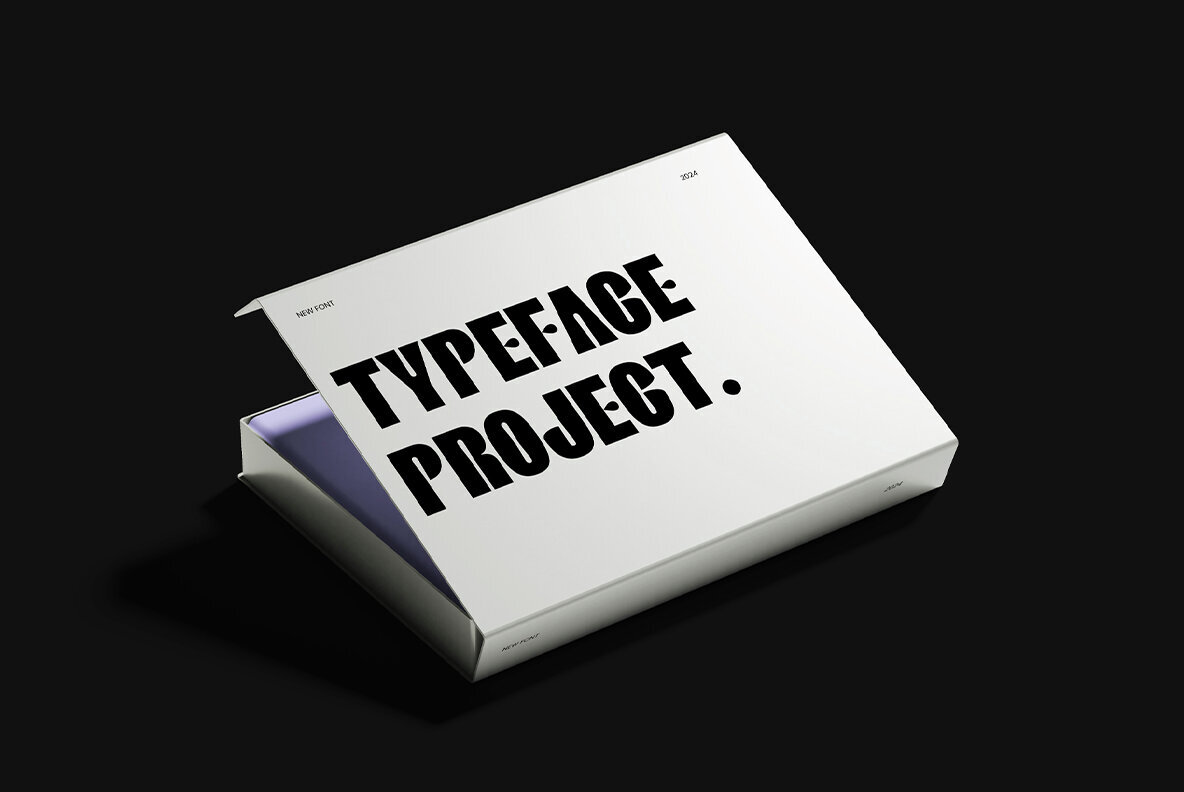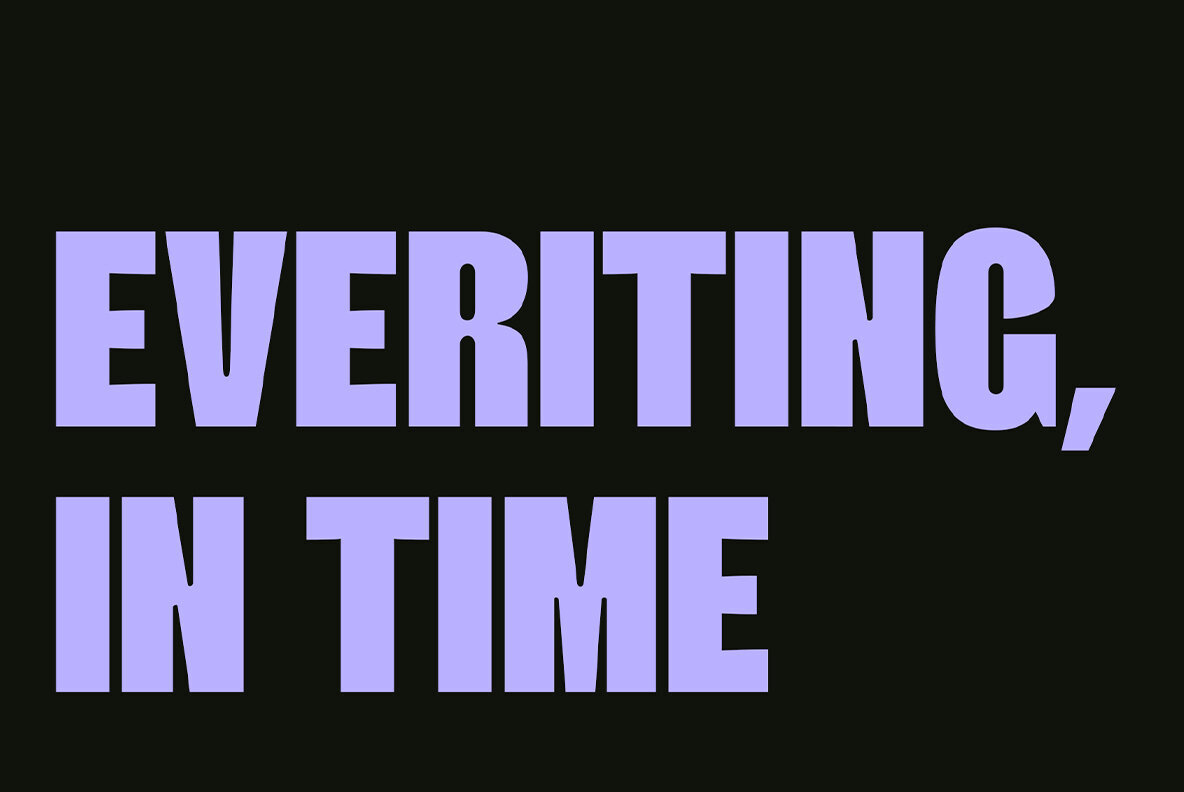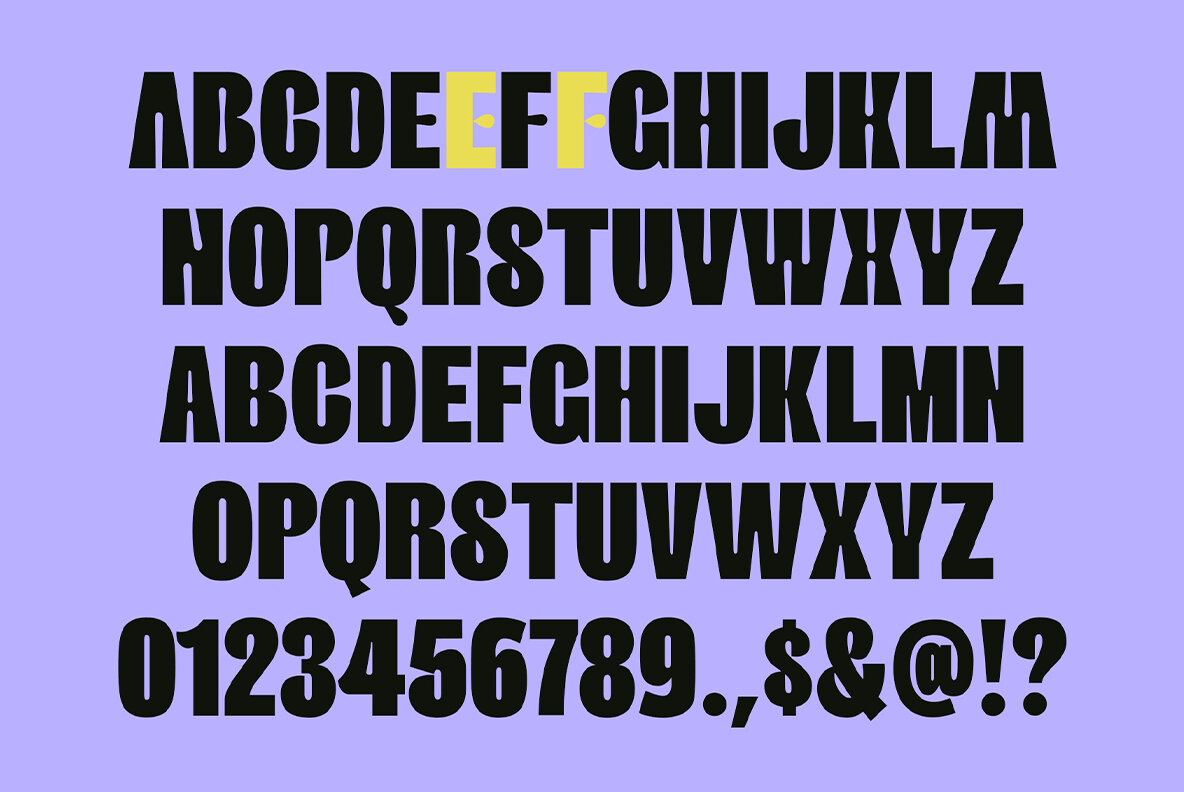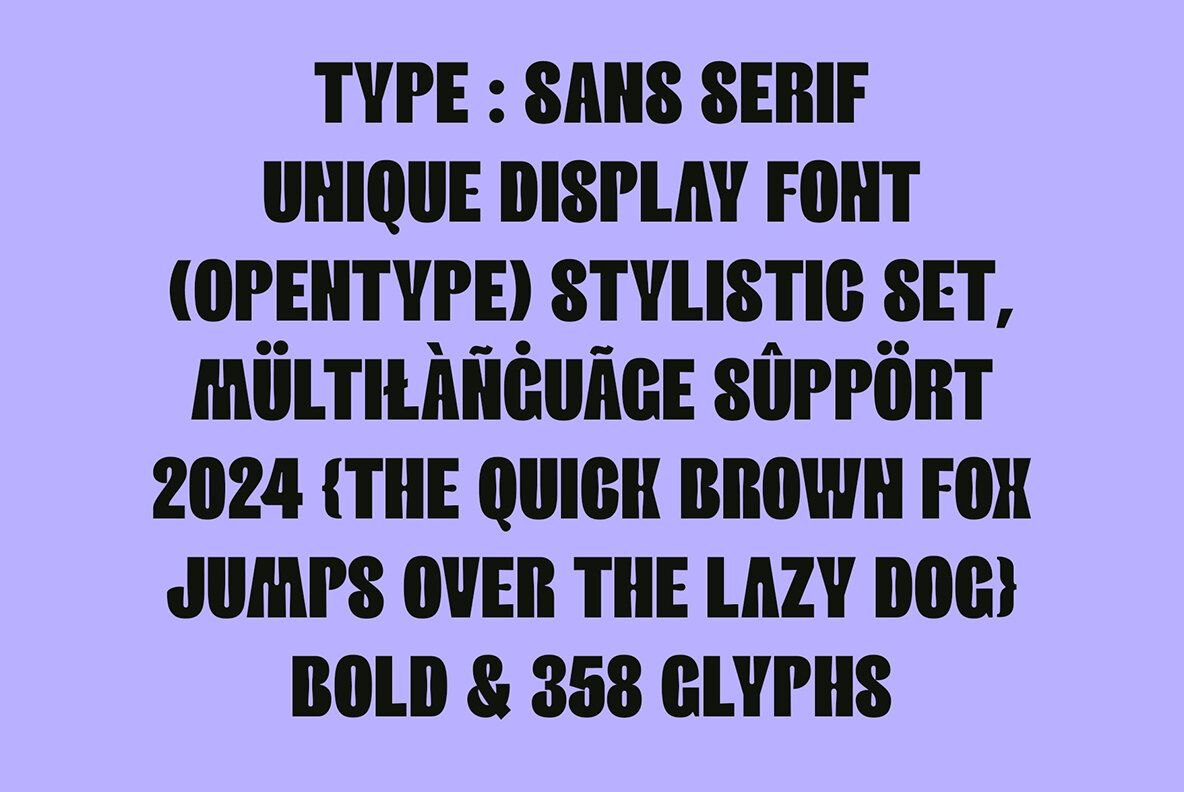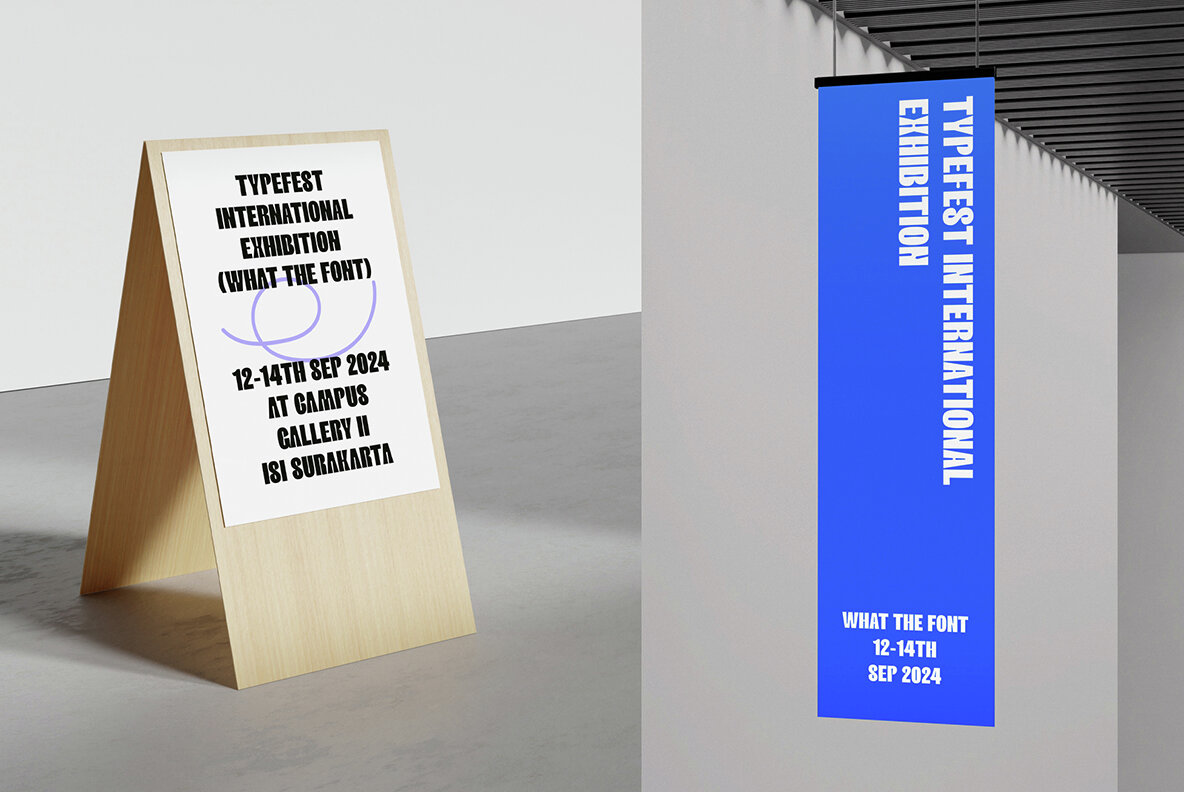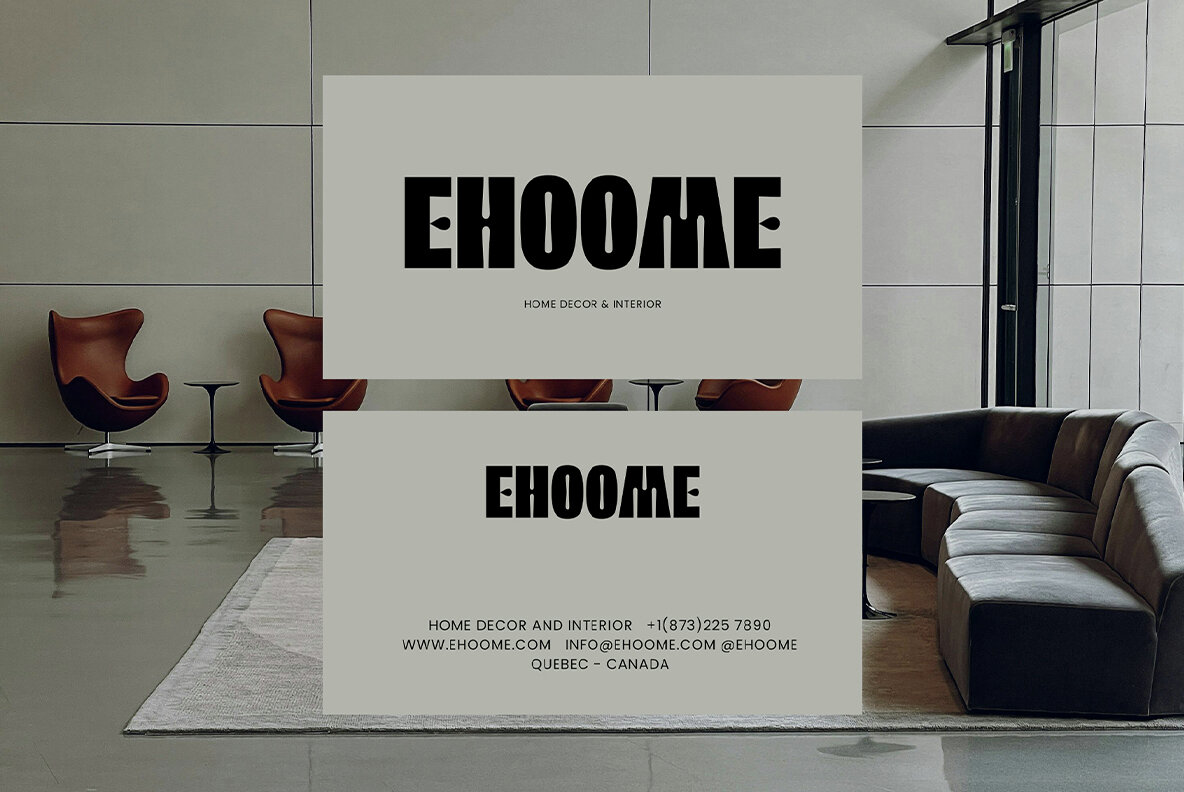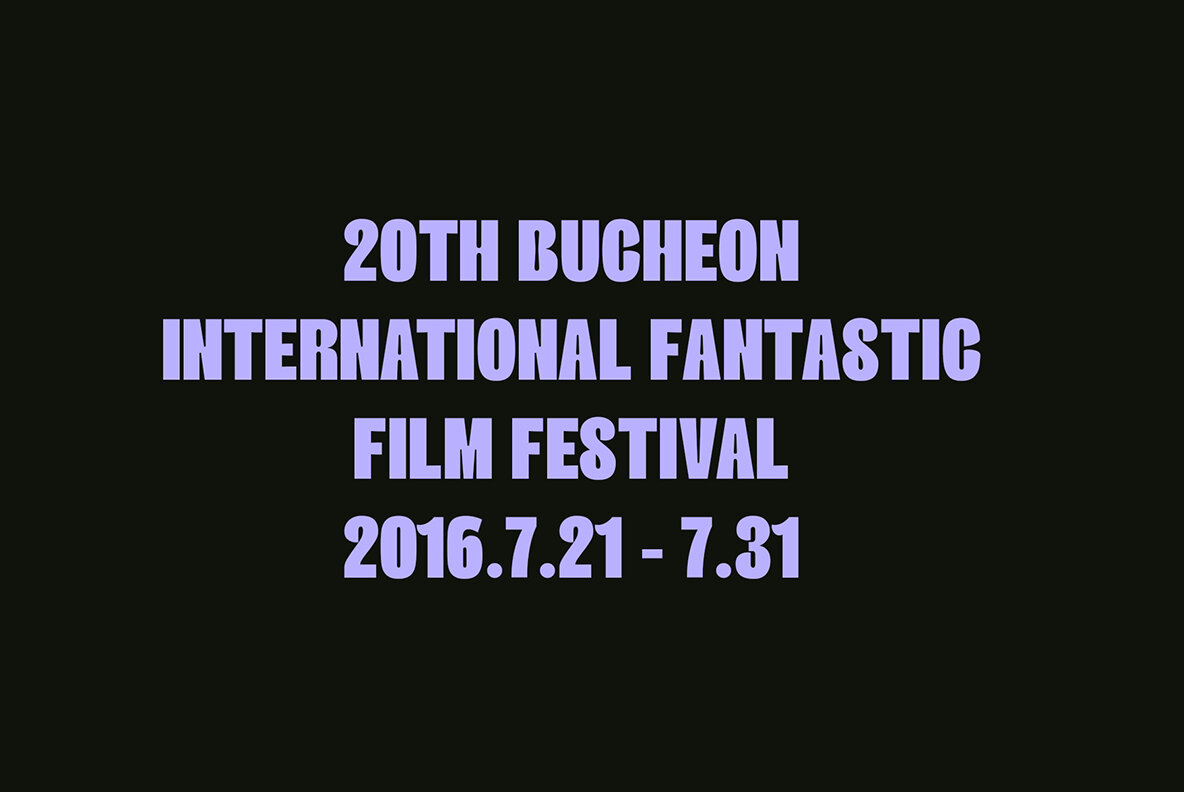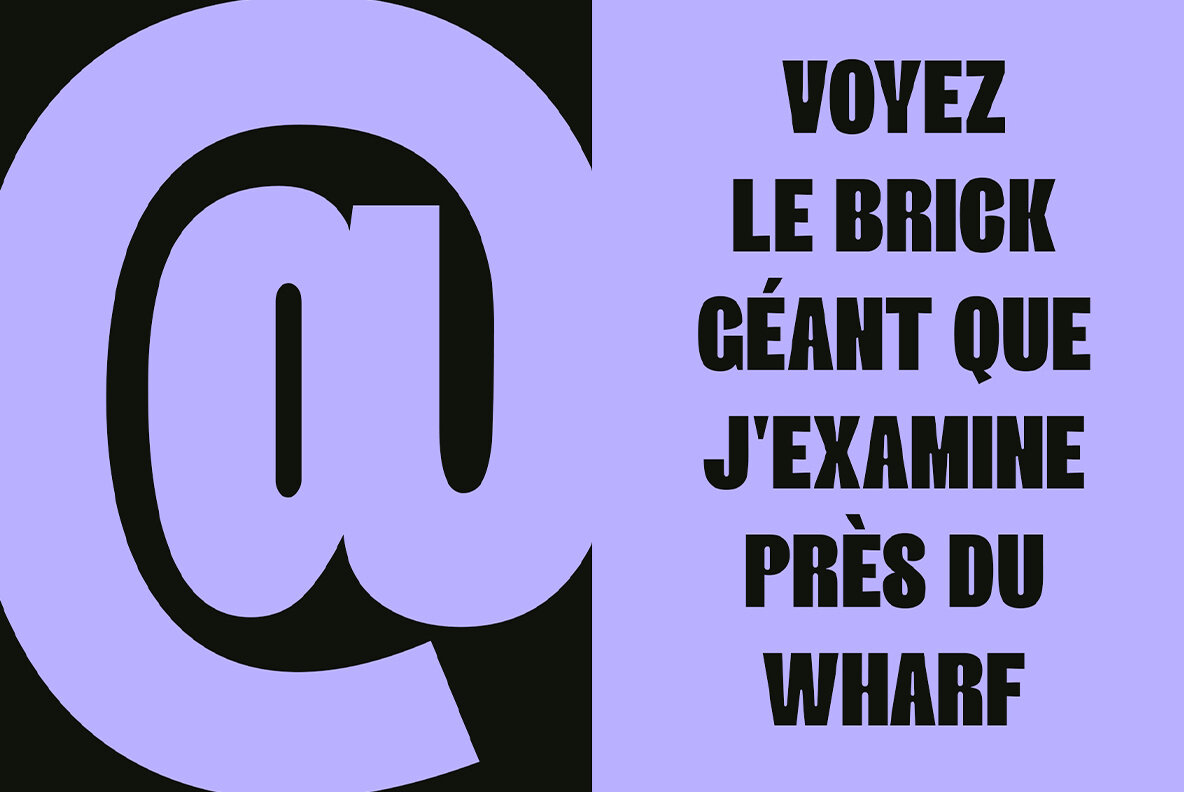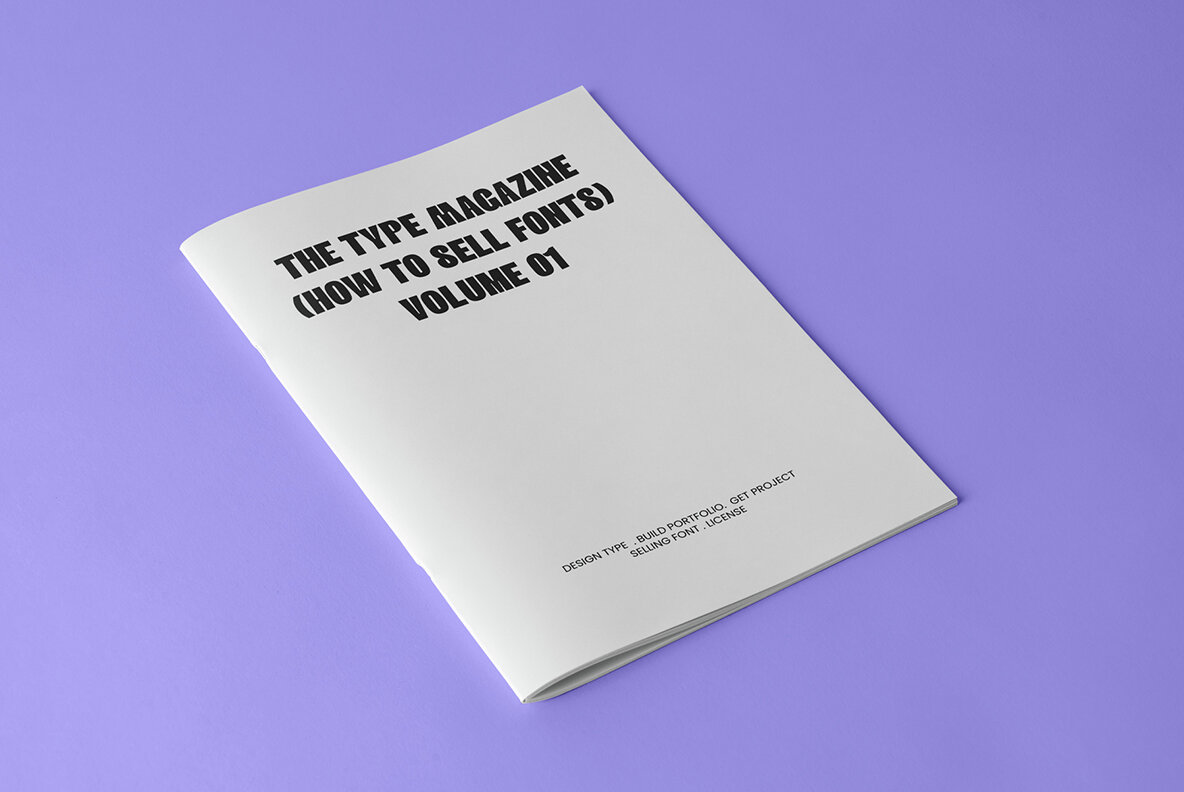
ED Aughris Font
ED Aughris Regular
Aughris is a sans serif display font with a strong and modern character. Its bold design and minimalist style make it well-suited for a variety of design applications, from headlines to bold graphic elements. Aughris font is designed to be easily combined with various other fonts. This gives you greater creative freedom in creating unique and interesting designs. and the distinctive shape of the Aughris font will give a different touch to each of your designs. The modern and minimalist style of Aughris also makes it very suitable for current design trends. This font will give your design a fresh and contemporary look. This font is perfect for your creative projects such as Logotype, printed quotes, invitations, cards, headers, letterheads, Apparel, Web design, magazines, books, etc.